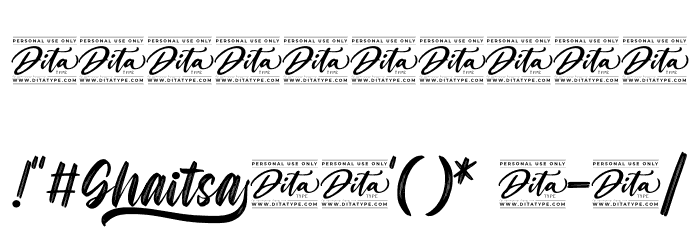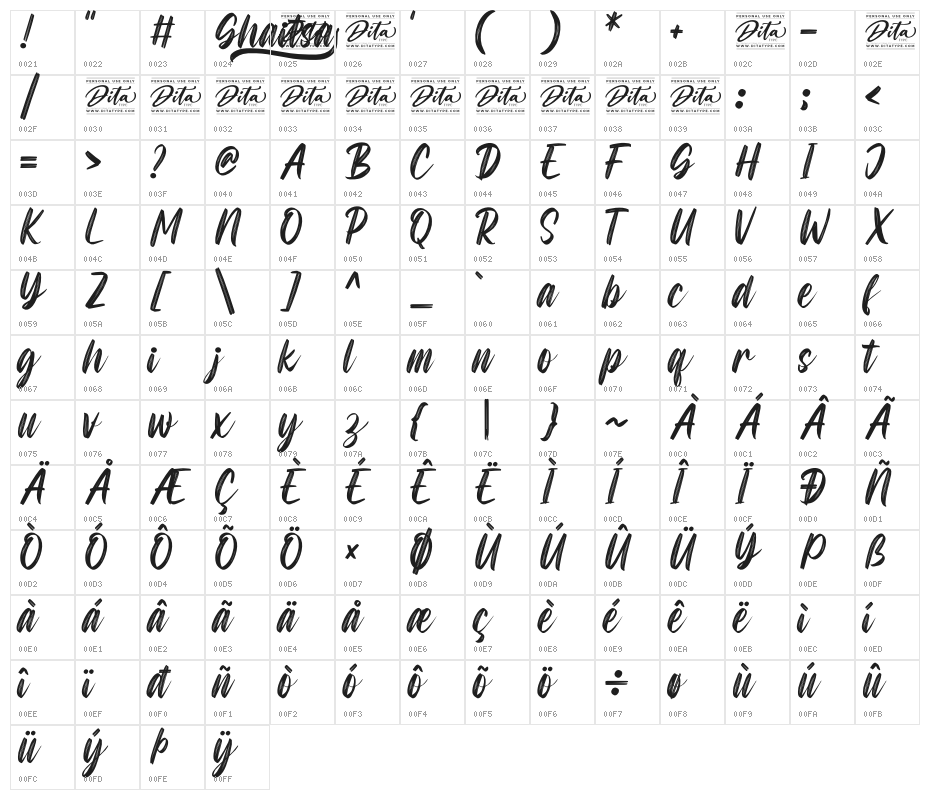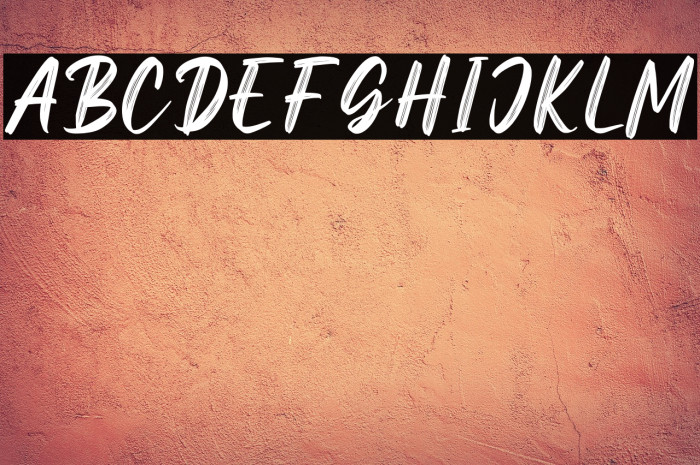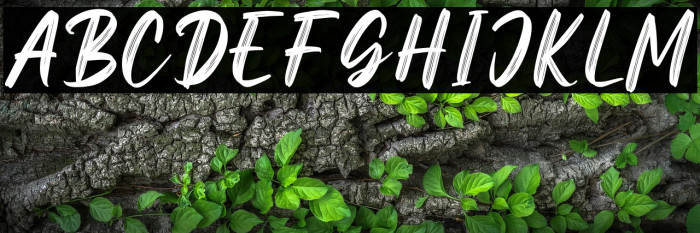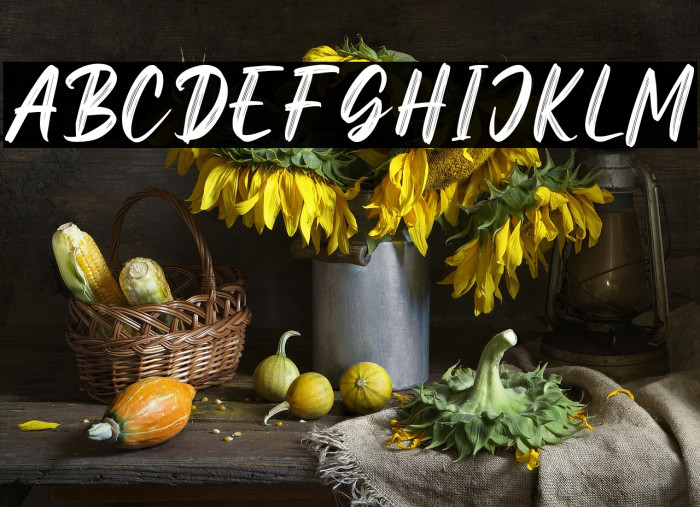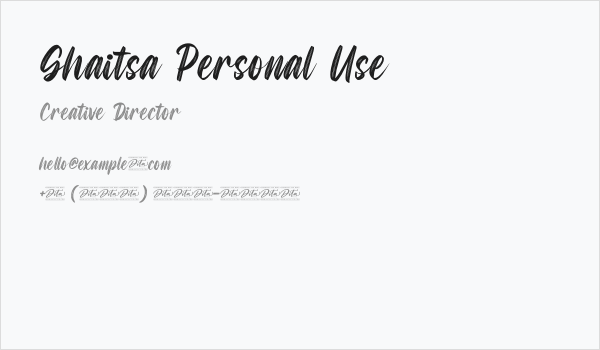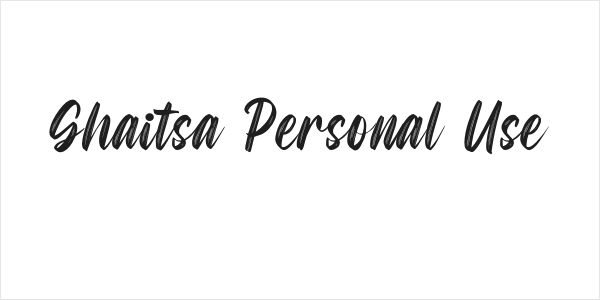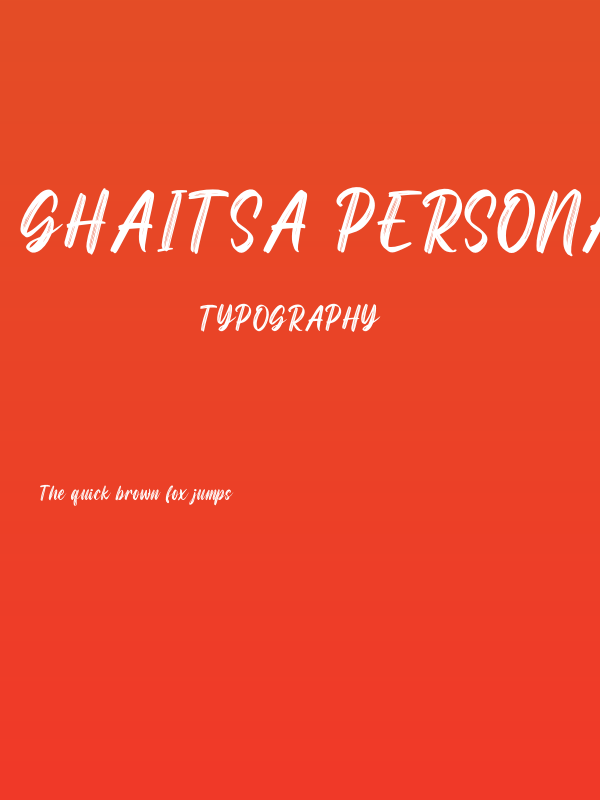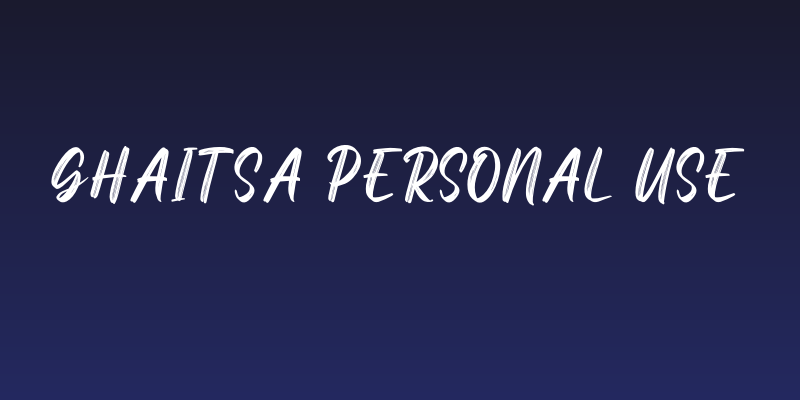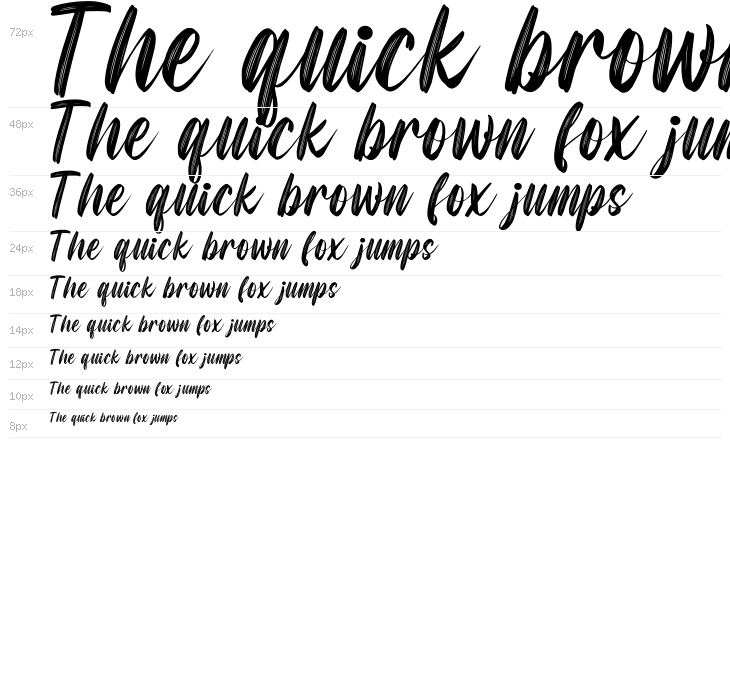
Ghaitsa Personal Use Font
Ghaitsa Personal Use Description
This font features a dynamic and expressive handwritten style, characterized by its bold and fluid strokes. The letters exhibit a natural flow, with varying thickness that adds a sense of movement and energy. The uppercase and lowercase letters maintain a consistent style, with some playful variations in the curves and loops. The font includes a full set of numerals and a selection of special characters, making it versatile for various design needs. Its brush-like appearance gives it a personal and artistic touch, suitable for projects that require a creative and informal look.
| Proposed Projects | Ideal for branding, invitations, greeting cards, and social media graphics. |